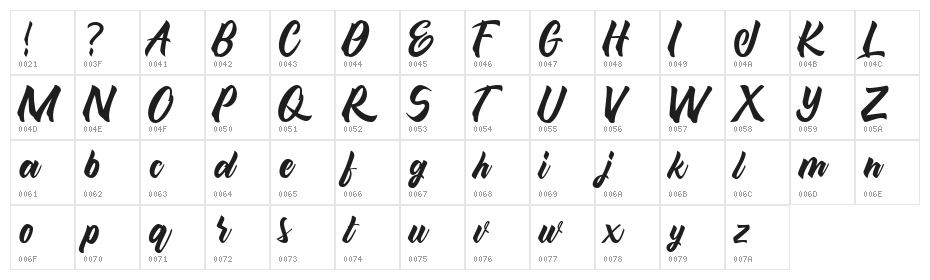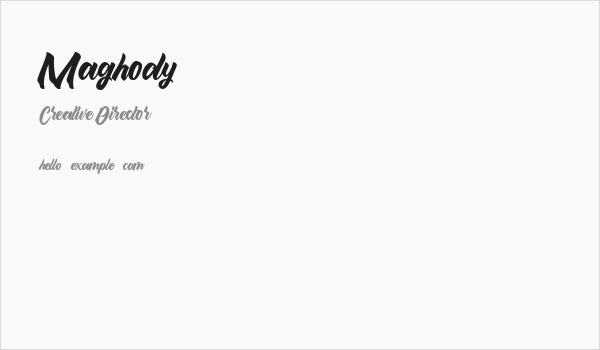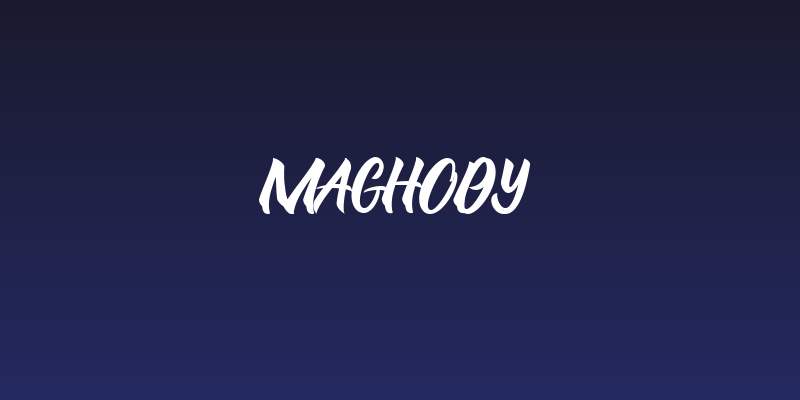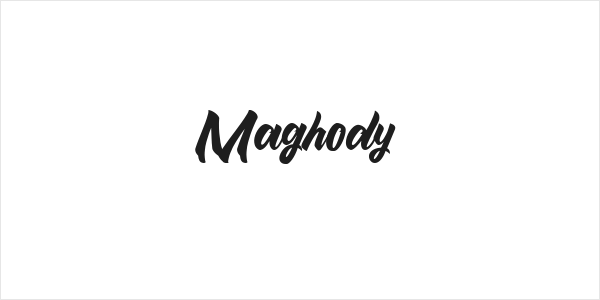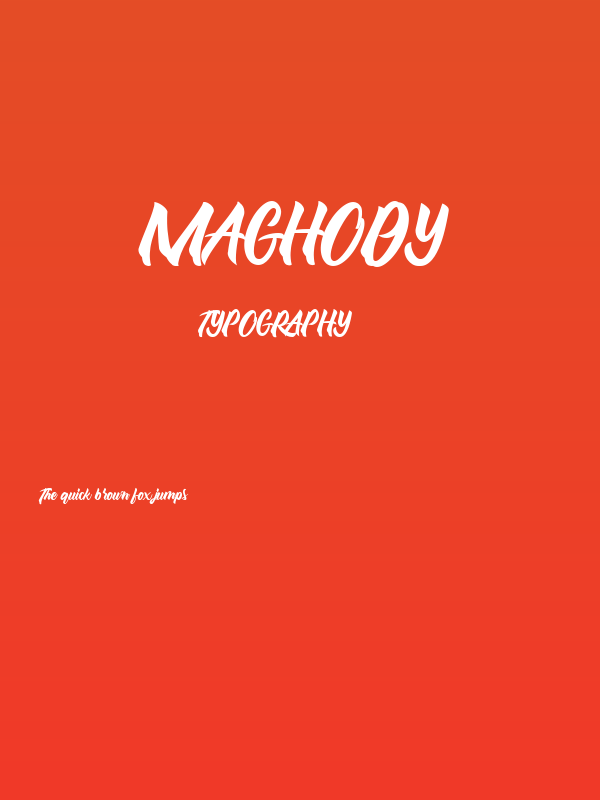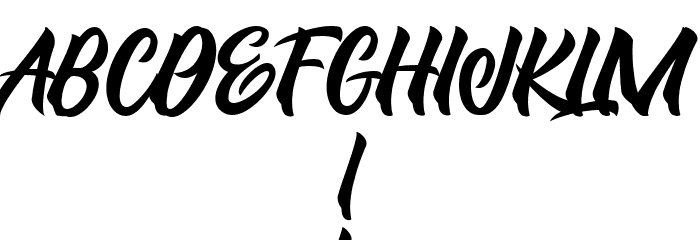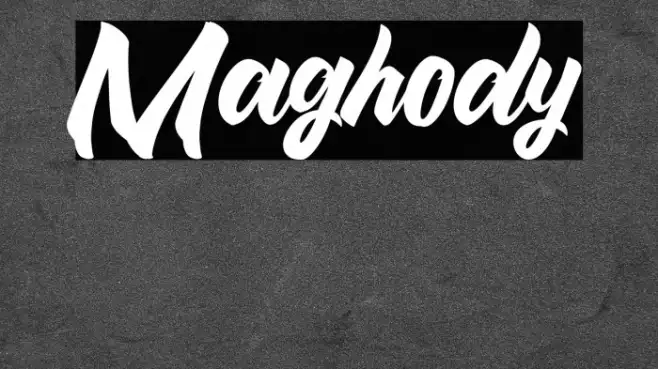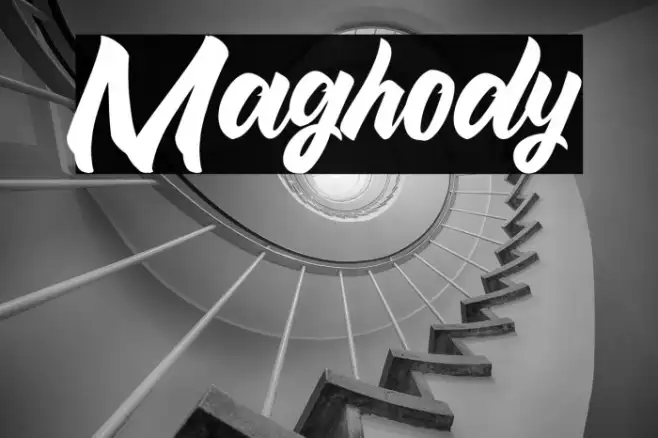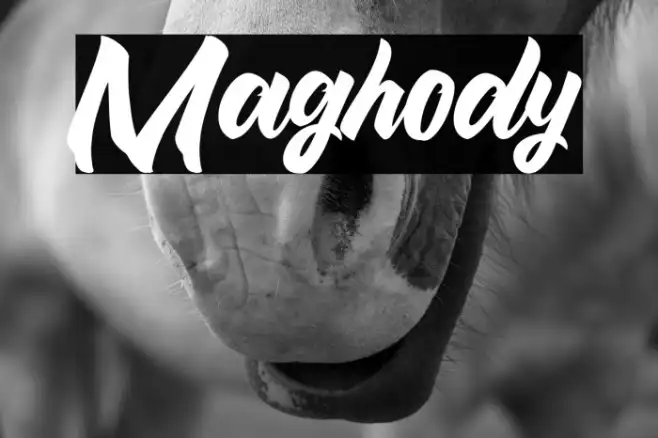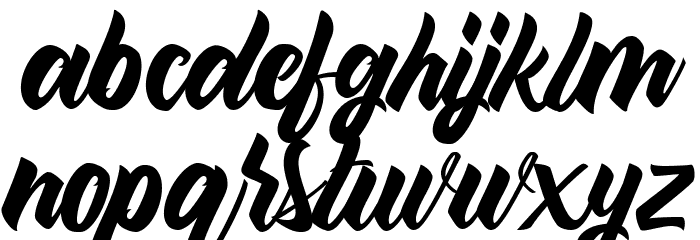
Maghody Font
Maghody Description
This font features a bold and dynamic script style with a strong, flowing character. The letters are interconnected, creating a sense of movement and fluidity. The strokes are thick and expressive, giving the font a powerful presence. It has a modern and artistic flair, making it suitable for creative and eye-catching designs. The uppercase and lowercase letters maintain a consistent style, with some variations in the curves and angles that add to its unique character. The special characters are integrated seamlessly, maintaining the overall aesthetic of the font.
| Proposed Projects | Ideal for branding, logos, posters, and creative design projects that require a bold and artistic touch. |